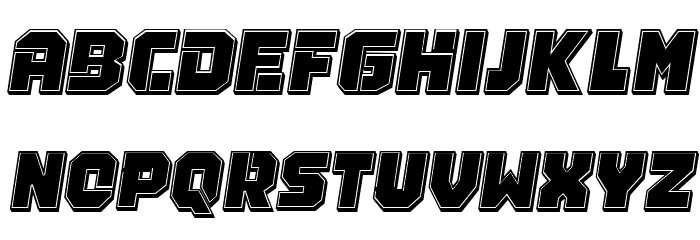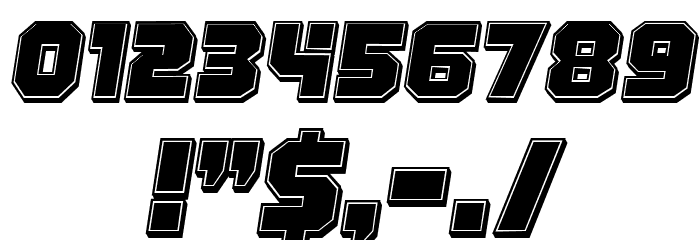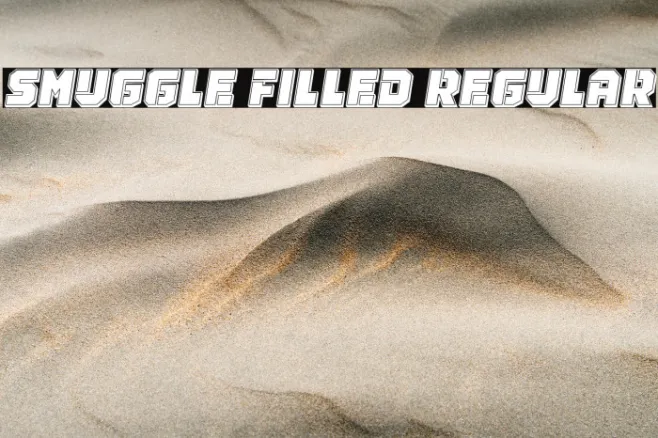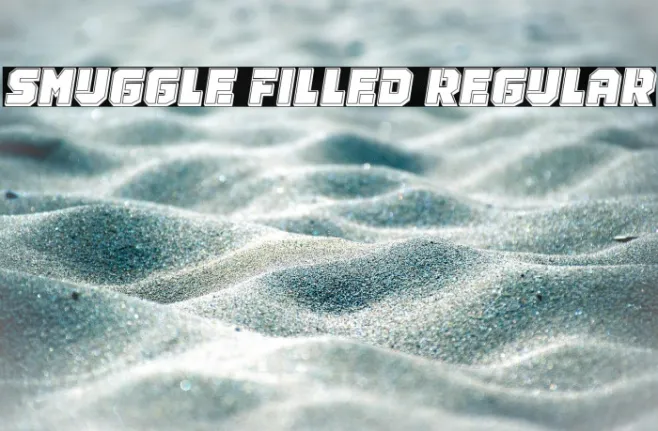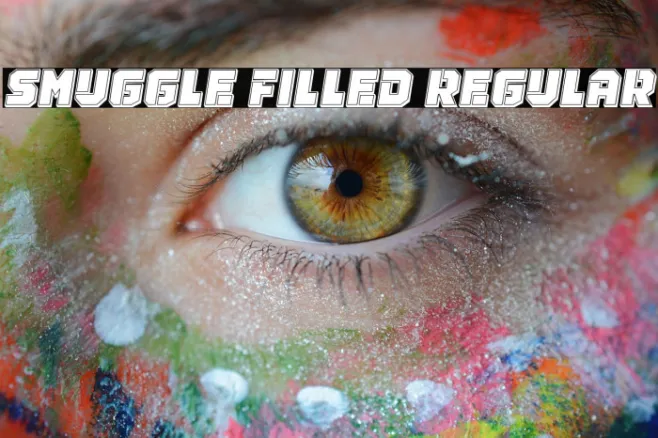
Smuggle Filled Regular Font
This font features a bold, geometric design with a strong, impactful presence. The characters are filled with solid black and outlined with a thick white border, creating a striking contrast that enhances readability and visual appeal. The angular, blocky shapes give it a modern and futuristic look, making it ideal for attention-grabbing headlines or titles. The uniformity in the design of both uppercase and lowercase letters, as well as numbers and special characters, ensures consistency across different uses. Its boldness and distinct style make it suitable for projects that require a strong visual identity.
A bold, geometric font with strong contrast and a modern, futuristic style.
- Font: Smuggle Filled Regular
- Proposed Projects: Ideal for branding, posters, video game graphics, and any project needing a bold, modern look.